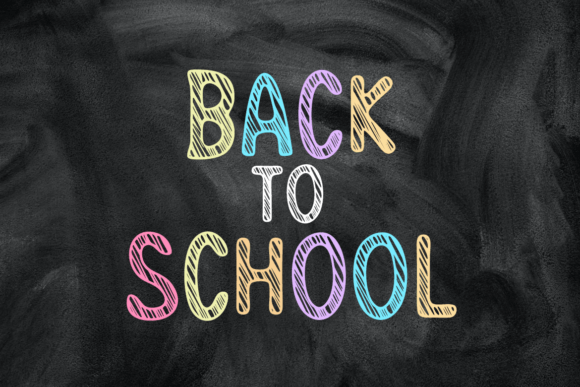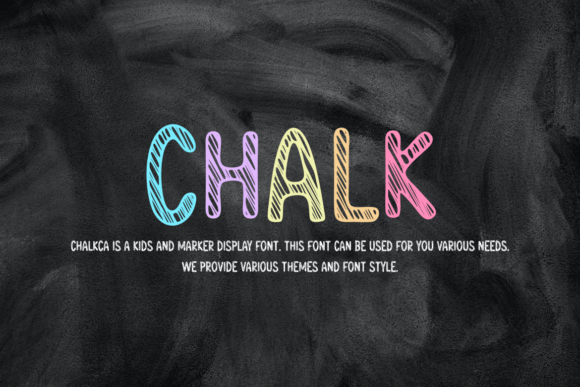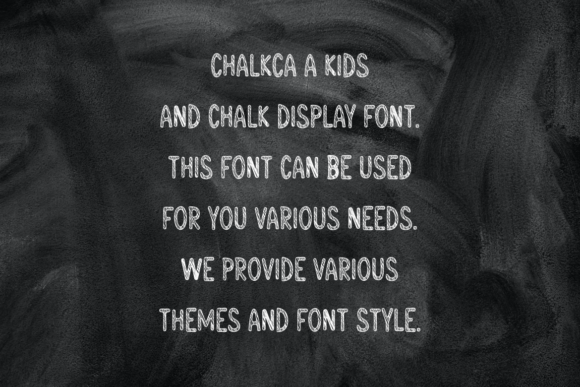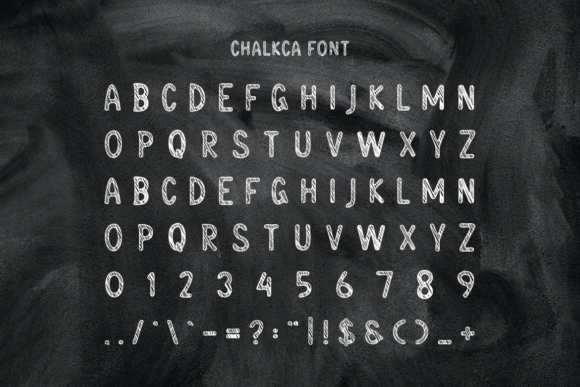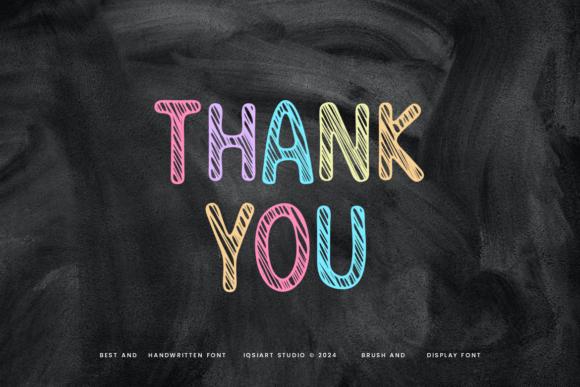
Introducing Chalkca Font: The Fun and Playful Choice for Creative Projects
Are you looking for a font that adds a touch of playfulness and creativity to your designs? Look no further than Chalkca Font! This delightful font is perfect for kids’ projects, school activities, and colorful designs that require a fun and lively touch. In this article, we’ll explore the features and benefits of Chalkca Font, and why it’s a must-have for designers and crafters.
What is Chalkca Font?
Chalkca Font is a digital font that mimics the look of handwriting with markers or chalk. Its bold, rounded letters are easy to read and have a friendly, approachable feel. The font’s playful and whimsical design makes it ideal for projects that require a creative and youthful touch.
Key Features of Chalkca Font
- Fun and Playful Design: Chalkca Font has a unique and playful design that looks like it was written with markers or chalk.
- Bold and Rounded Letters: The font’s bold and rounded letters make it easy to read and perfect for creating bright and happy text.
- Easy to Read: Chalkca Font is designed to be easy to read, making it perfect for kids’ projects and school activities.
- Versatile: Chalkca Font can be used for a wide range of projects, from posters and flyers to crafts and DIY projects.
Why Use Chalkca Font?
Chalkca Font is a great choice for designers and crafters who want to add a touch of playfulness and creativity to their projects. Here are some reasons why:
- Perfect for Kids’ Projects: Chalkca Font is ideal for kids’ projects, such as school assignments, crafts, and activities.
- Great for Colorful Designs: The font’s bold and bright design makes it perfect for colorful designs and projects that require a fun and lively touch.
Tips and Tricks for Using Chalkca Font
Here are some tips and tricks for using Chalkca Font:
- Use Bright Colors: Use bright and bold colors to match the playful design of Chalkca Font.
- Experiment with Sizes: Experiment with different font sizes to create visual interest and hierarchy.
- Combine with Other Fonts: Combine Chalkca Font with other fonts to create a unique and creative look.
- Have Fun: Most importantly, have fun and be creative with Chalkca Font!
Chalkca Font is a fun and playful font that’s perfect for designers and crafters who want to add a touch of creativity and playfulness to their projects. With its bold and rounded letters, easy-to-read design, and versatile uses, Chalkca Font is a must-have for anyone looking to create bright, happy, and creative text. So why not give Chalkca Font a try and see how it can add a touch of fun and playfulness to your designs?